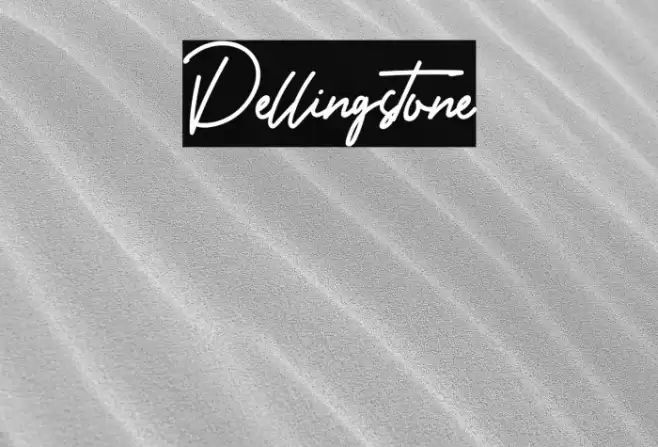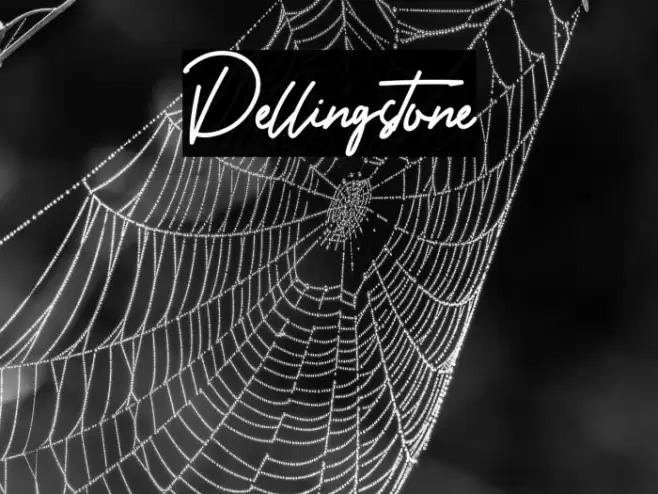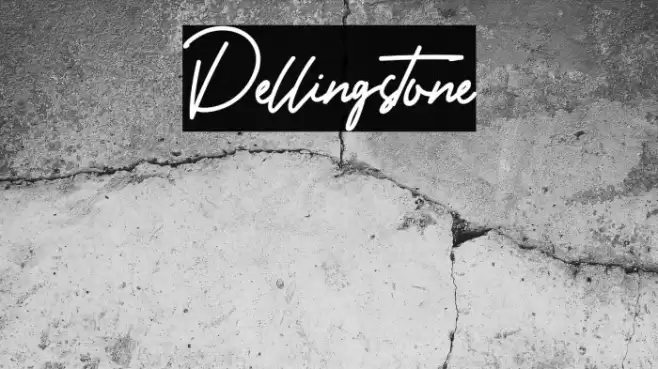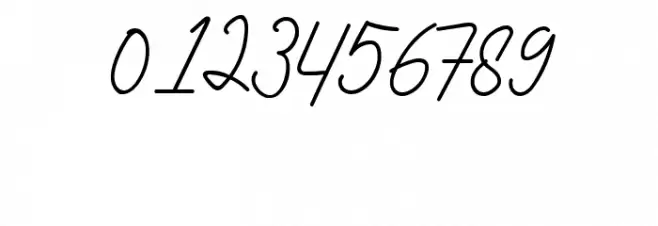
Dellingstone Font
Dellingstone Description
This font exudes a dynamic and fluid style, characterized by its cursive and handwritten appearance. The letters are connected in a smooth, flowing manner, giving it an elegant and personal touch. The uppercase letters are bold and slightly italicized, while the lowercase letters maintain a consistent slant, enhancing the overall cohesiveness. The numerals are distinct yet harmonize well with the alphabet, maintaining the cursive style. Special characters are seamlessly integrated, ensuring versatility in various contexts. The font's design is both modern and classic, making it suitable for a wide range of applications.
A fluid, cursive handwritten font with a modern yet classic appeal from Regular fonts.
- Proposed Projects: Ideal for wedding invitations, personal branding, greeting cards, and elegant logos.
- Use Case: Logos, Invitations, Personal Branding